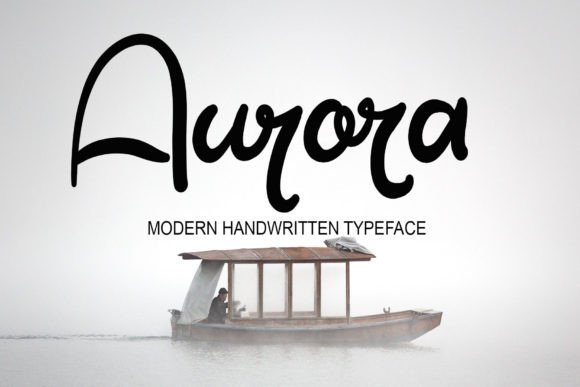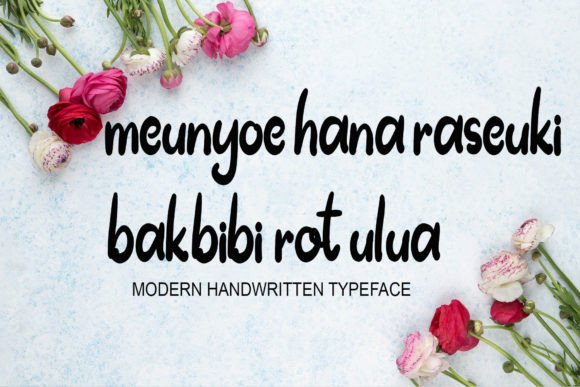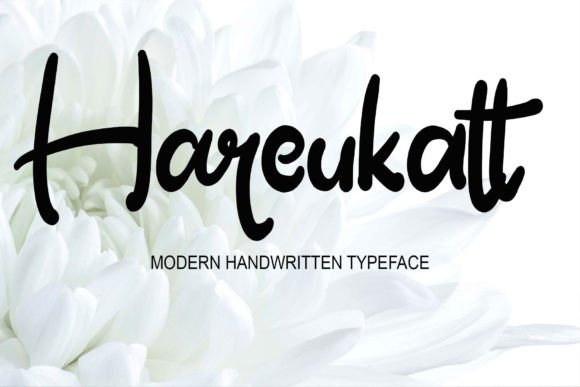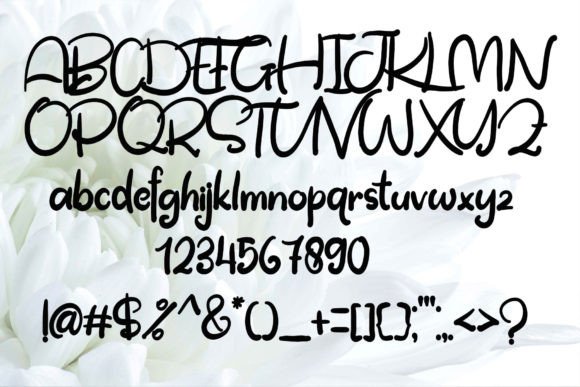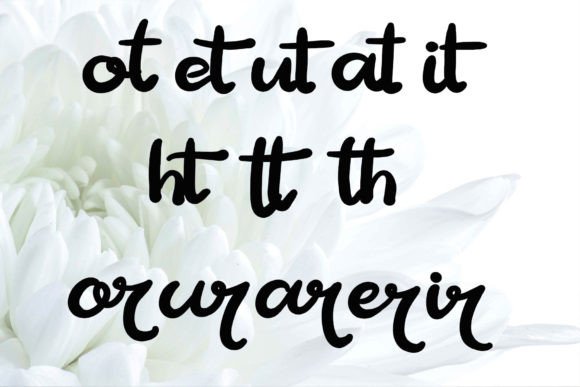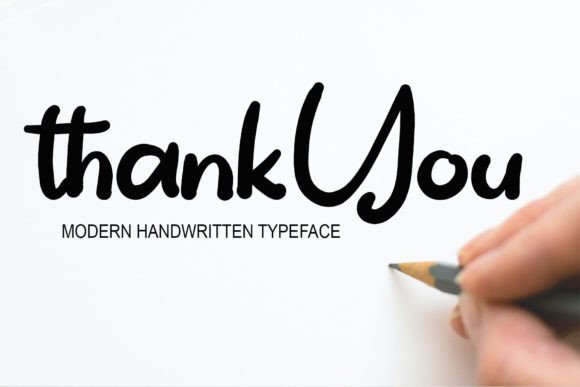
Jaithat Hekke Font
A Stylish and Modern Handwritten Script
Jaithat Hekke is a carefully crafted handwritten font created using a tablet. Each letter feels smooth, balanced, and full of personality. The simple shapes make this font approachable, while the stylish details keep it feeling modern and fresh.
Whether you’re working on professional branding or personal projects, Jaithat Hekke helps your words look polished and unique.
Jaithat Hekke is a versatile font that adapts easily to a wide range of uses. It’s perfect for wedding invitations, save-the-date cards, and event signage. The handwritten style brings a warm, romantic feel to any celebration.
Use Jaithat Hekke for business cards, websites, and brand materials. The clean lines and natural flow create a professional look that feels personal and welcoming.
This font is also great for advertisements, including product promotions and service announcements. The clear, stylish shapes help your message stand out without overwhelming the design.
Jaithat Hekke shines on social media graphics, blog headers, and Pinterest pins. The handwritten touch adds personality and charm to every post.
The font includes uppercase and lowercase letters, numbers, and punctuation marks. Ligatures are also included so your text flows naturally and looks cohesive.
Clear, Clean, and Easy to Read
Even though Jaithat Hekke has a handwritten style, it remains clear and legible in any size. Balanced spacing between letters ensures your text looks organized and professional, whether you’re using large headlines or small captions.
Many designers like pairing Jaithat Hekke with a minimalist sans-serif font for contrast. Use Jaithat Hekke for titles and the sans-serif for supporting text. This approach guides the reader’s eye and keeps your layouts clean and modern.
To bring out Jaithat Hekke’s clean elegance, use soft backgrounds and neutral color palettes. Shades like ivory, warm gray, and blush allow the smooth lines to stand out without distraction.
When designing wedding materials or branding, consider adding simple line art or icons that match the font’s style. For social media and advertising, keep your layouts simple so the font remains the focal point.
Think about the mood you want to create. Jaithat Hekke is perfect for designs that should feel approachable, stylish, and sincere.
Jaithat Hekke is more than just a handwritten script. It’s a creative tool that transforms ordinary text into something special and memorable. Its smooth curves and balanced shapes bring sophistication to any project.
Adding Jaithat Hekke to your font collection gives you a reliable choice for all types of creative work. From branding and packaging to weddings and digital content, this font adapts effortlessly to your ideas.